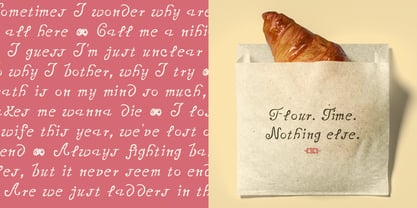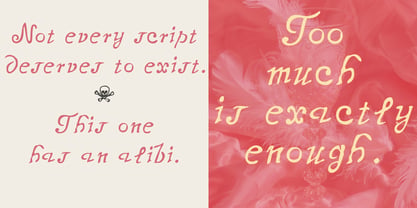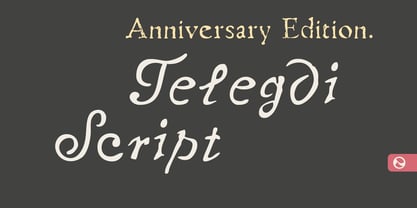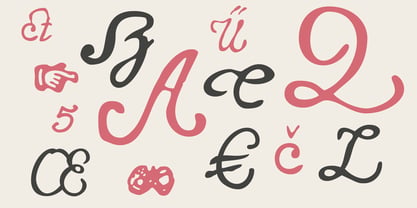
Telegdi Script
by Monovo
The Telegdi Script Font Family was designed by Amondó Szegi and published by Monovo. Telegdi Script contains 1 styles. More about this family
Before the press, there was the hand.
The manuscript tradition that preceded Telegdi's Nagyszombat press was not decorative — it was functional. Clerics wrote before they could print, and the cursive hand carried the same urgency as the set type: words that needed to reach people before the moment passed.
The Telegdi Script comes from that tradition. It pairs with Telegdi Antiqua not as ornament but as extension — the written annotation beside the set text, the dedication beneath the title, the signature below the sermon. Together, they reconstruct a complete typographic world.
One weight. Enough..
Designers: Amondó Szegi
Foundry: Monovo